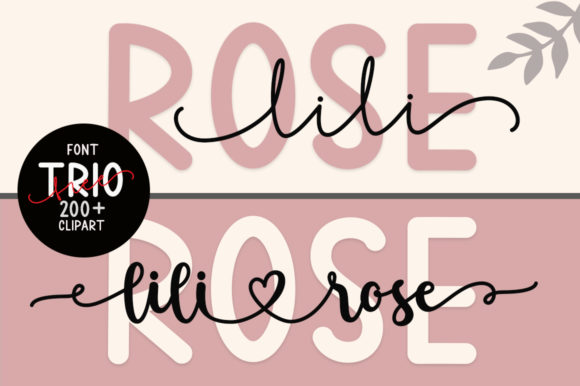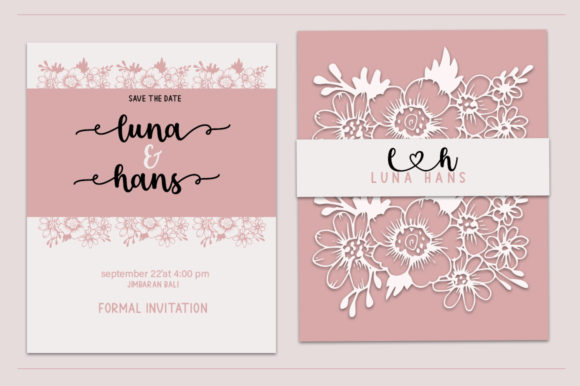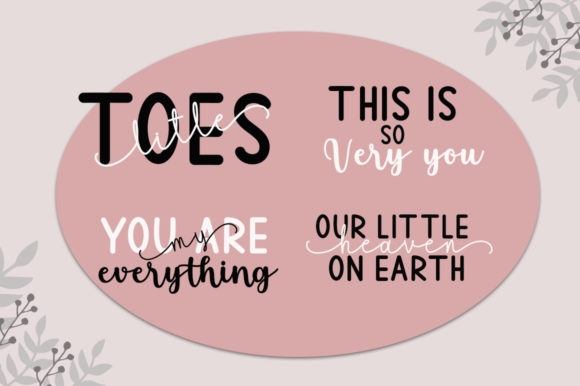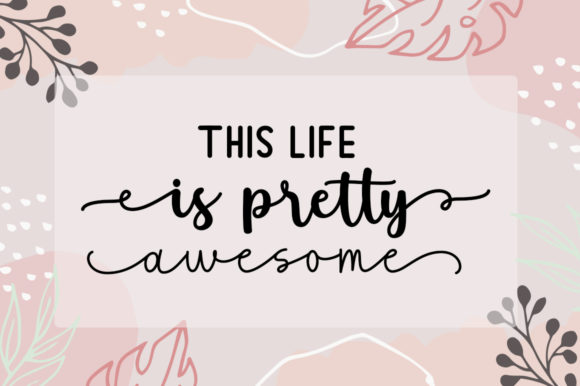
Lilirose Font
About the Lilirose Font
Discover the charm of Lilirose Font. This font is a perfect blend of modern aesthetics and classic appeal. Lilirose is an elegant and dainty duo font (handwritten and sans serif), that features sweet and delicate swashes. This original look will appeal to a wide range of crafty ideas, from letterheads and titles, to stationery. This font is PUA encoded which means you can access all of the glyphs and swashes with ease!
Lilirose’s delicate nature makes it ideal for projects requiring a touch of elegance and femininity, such as wedding invitations, branding for boutiques, or packaging for beauty products. Headlines, short text blocks, and logos benefit most from its charming swashes. However, its intricate details make it unsuitable for body text or UI elements where readability is paramount.
The handwritten style pairs beautifully with clean sans-serif fonts like Montserrat or Open Sans for a balanced contrast, or a geometric sans-serif like Futura for a more modern feel. For a touch of added sophistication, consider pairing it with a classic serif like Garamond or a slightly more playful script font, but keep the script usage minimal to avoid overwhelming the design.
Lilirose projects an overall air of refined femininity and gentle charm. It’s best suited for brands targeting a sophisticated, yet approachable audience.
Lilirose Font Usage Examples
Lilirose Font Example